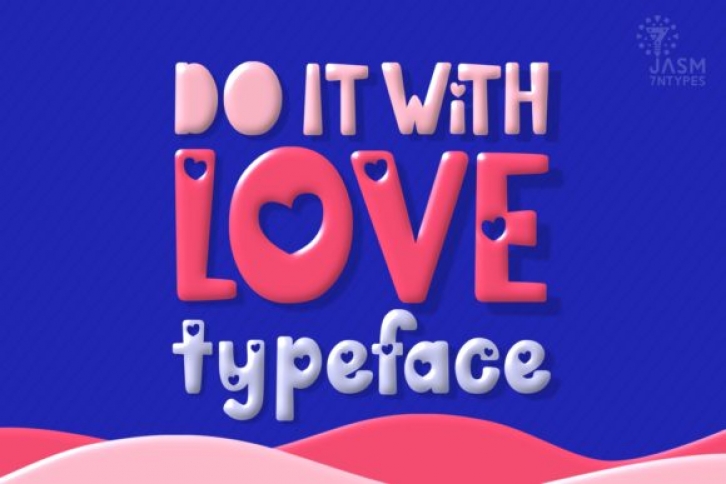
Do It with Love is romantic and playful, but also elegant. This versatile display font has a wide range of applications ranging from Valentine’s Day cards to wedding crafts, and is guaranteed to add a romantic touch to your next design.
This font is PUA encoded which means you can access all of the gorgeous glyphs and swashes with ease! It also features a wealth of special features including alternate glyphs and ligatures.